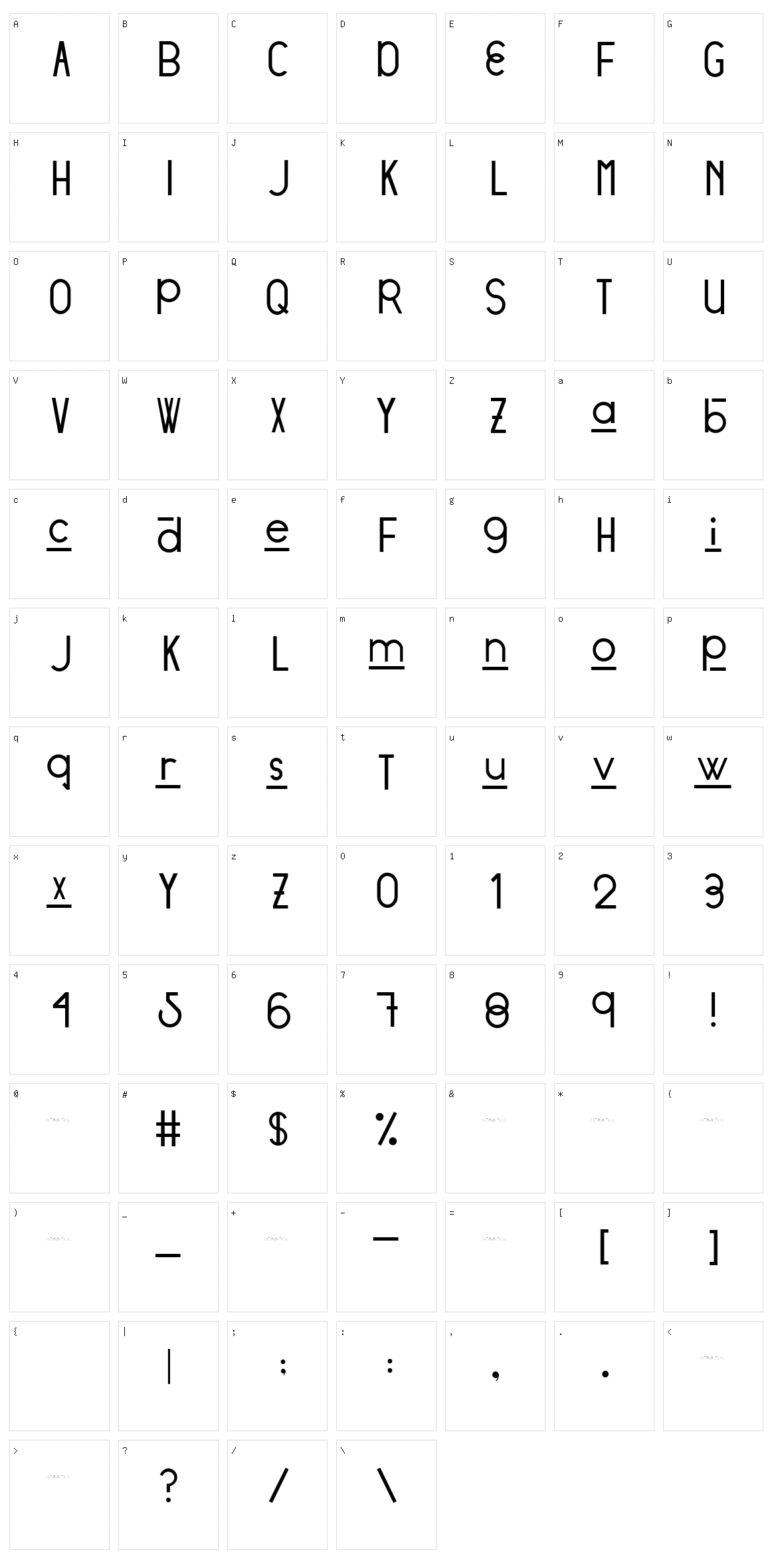
The free font Stratford Sans is carefully designed by bonafidecraft, showcasing a thoughtful balance of creativity and usability and falls under the Retro font style. When you download the ZIP file, it contains only 17.58 KB of font files, making it lightweight and quick to download. Please review the license details below to understand permitted usage and distribution rights. If license information is not available, we recommend using this font for personal projects only or contacting the author directly for commercial usage permissions.